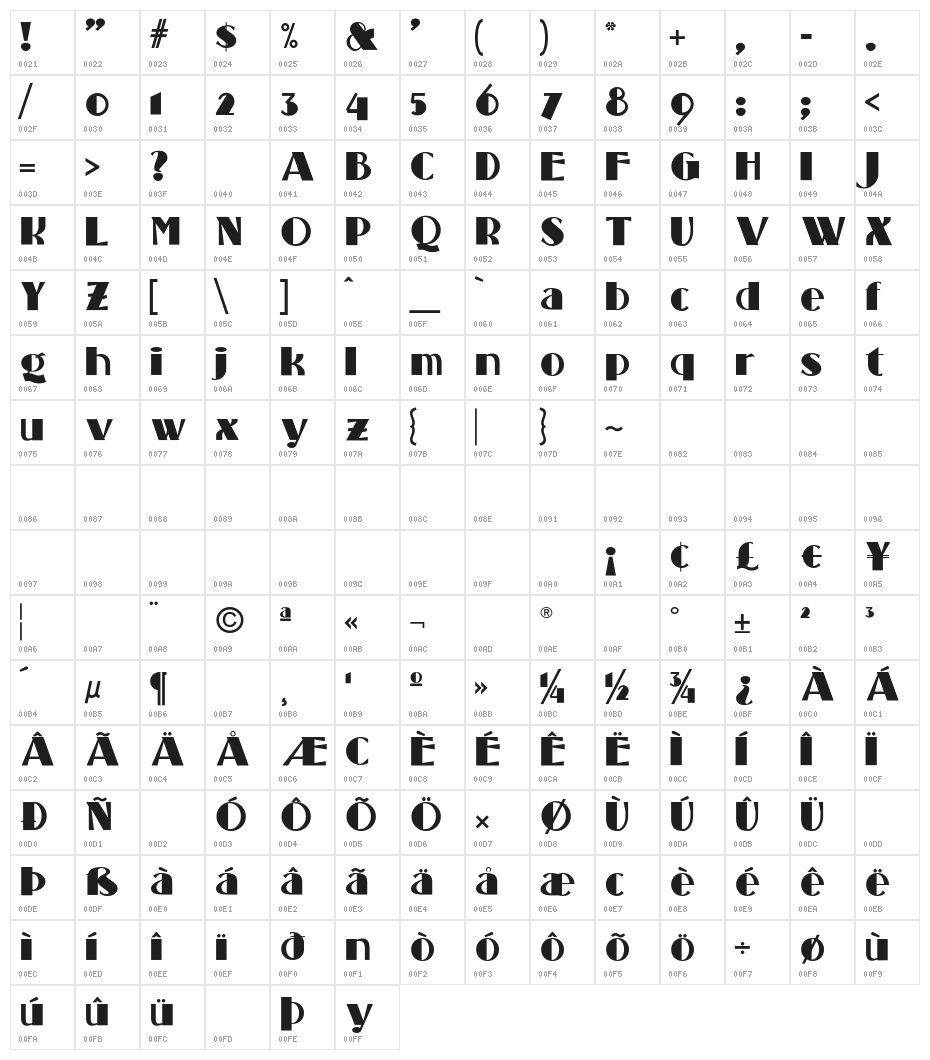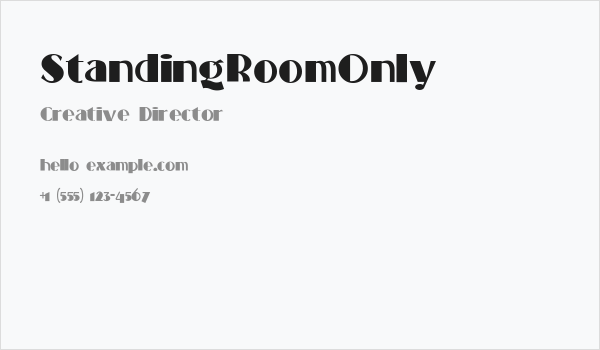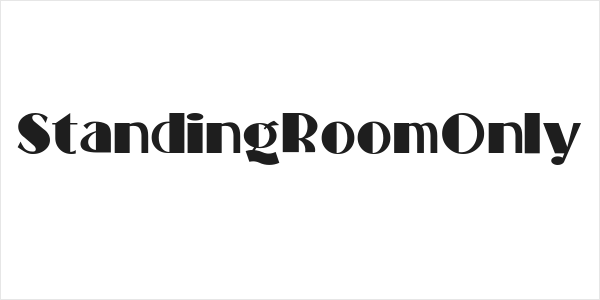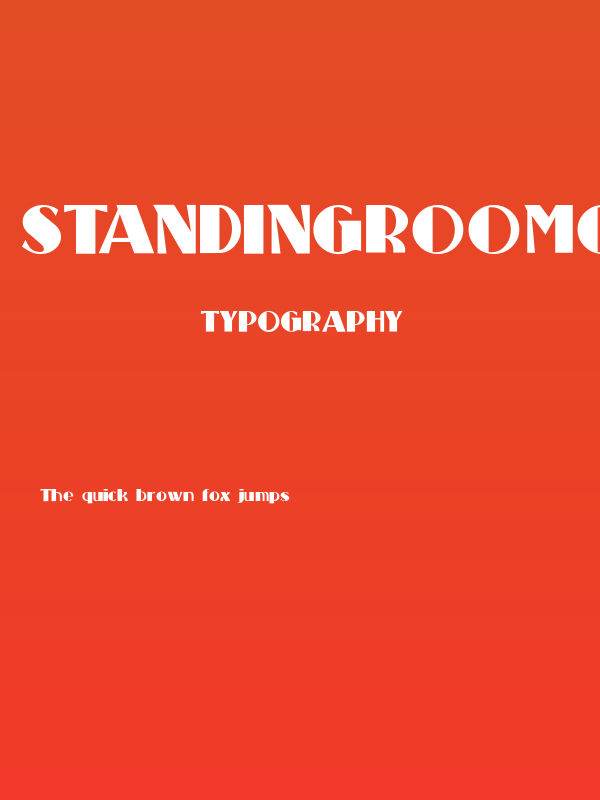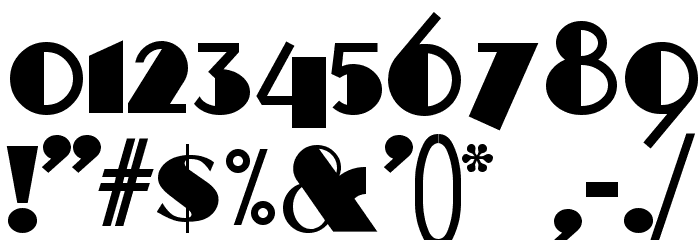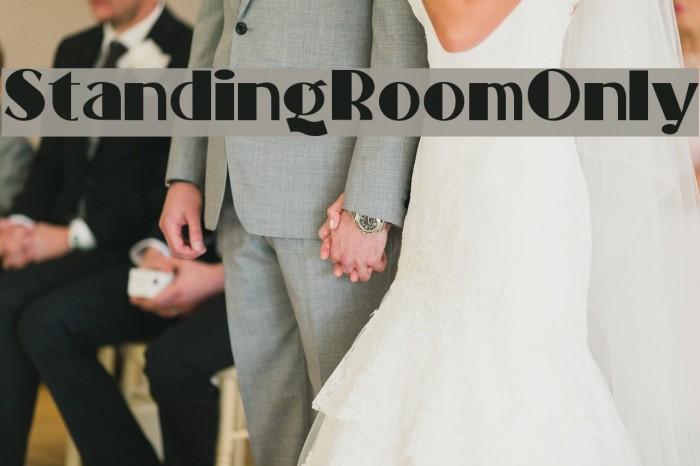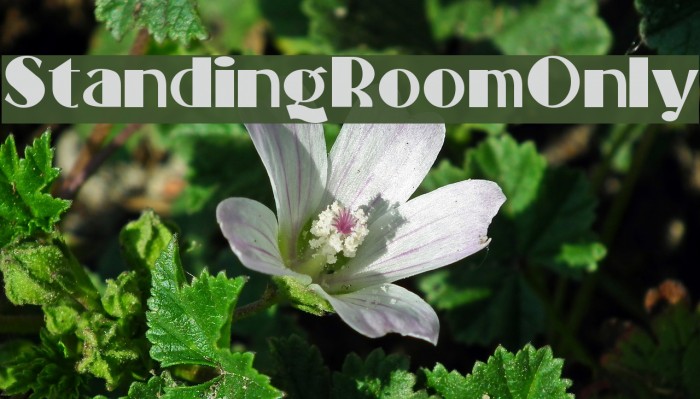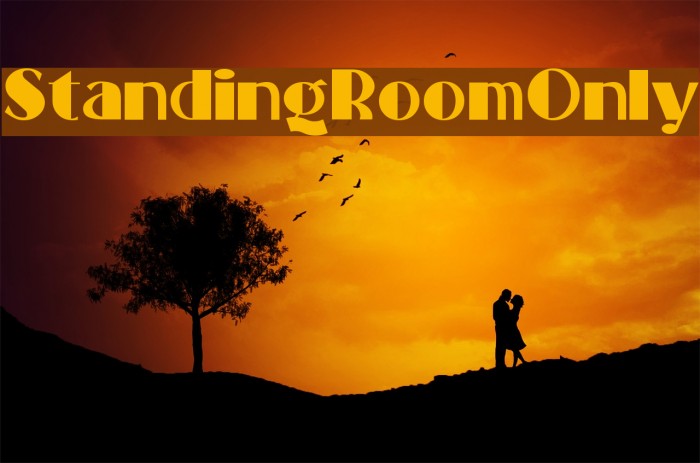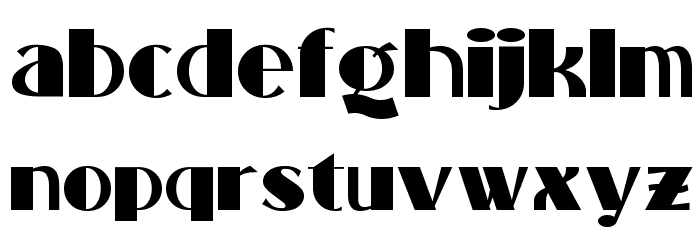
StandingRoomOnly Font
StandingRoomOnly Description
This font features a bold and striking design with a modern flair. The uppercase letters are characterized by sharp angles and geometric shapes, creating a sense of movement and energy. The lowercase letters maintain a similar style, with unique curves and cuts that add to the font's distinctiveness. The numbers are equally bold, with a consistent weight that matches the letters. Special characters are creatively designed, incorporating the same angular and geometric elements. This font is perfect for making a statement, with its high contrast and dynamic appearance.
| Proposed Projects | Ideal for branding, posters, headlines, and any project that requires a modern and impactful look. |